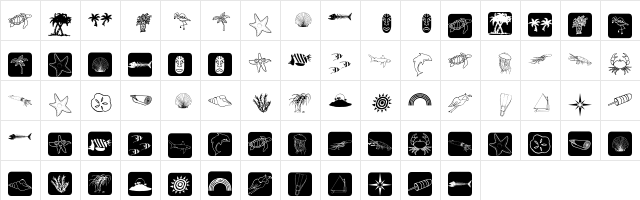
AquaMintsGD Regular
Design Context for AquaMintsGD Typeface
AquaMintsGD is a composed and adaptable typeface that performs quietly and consistently across a wide range of design contexts.